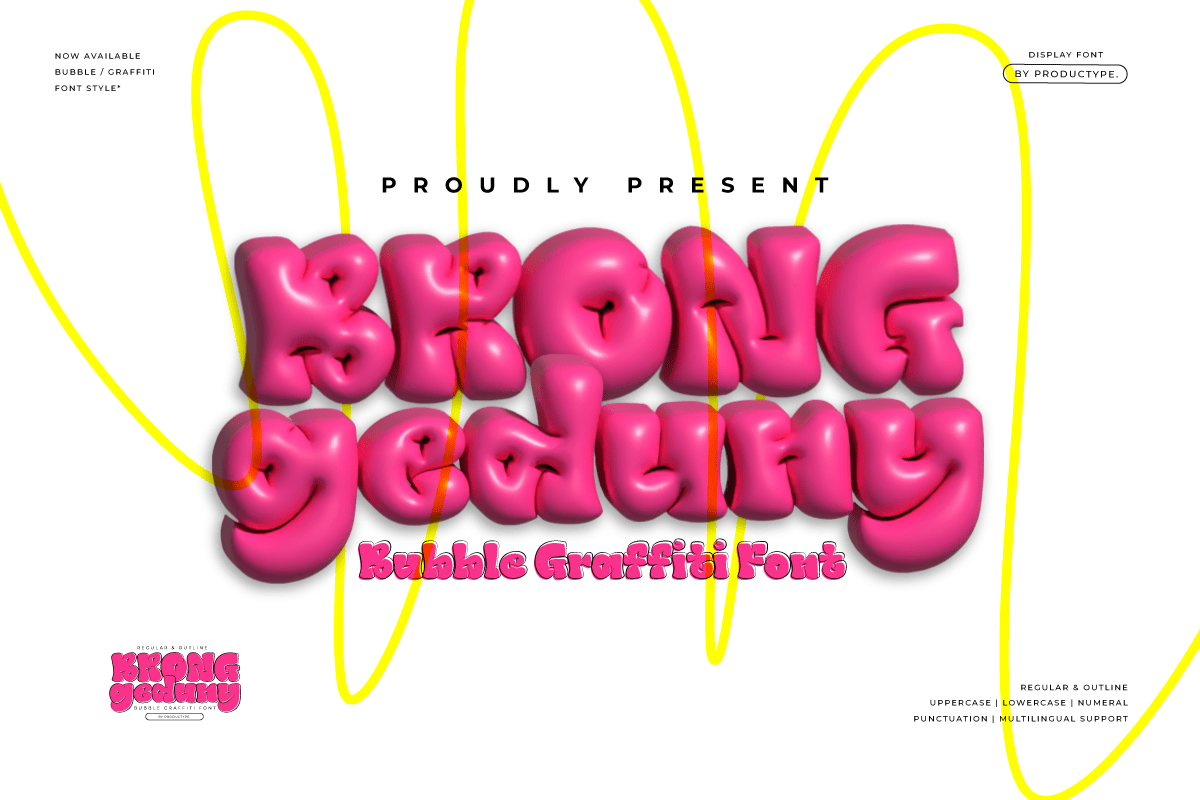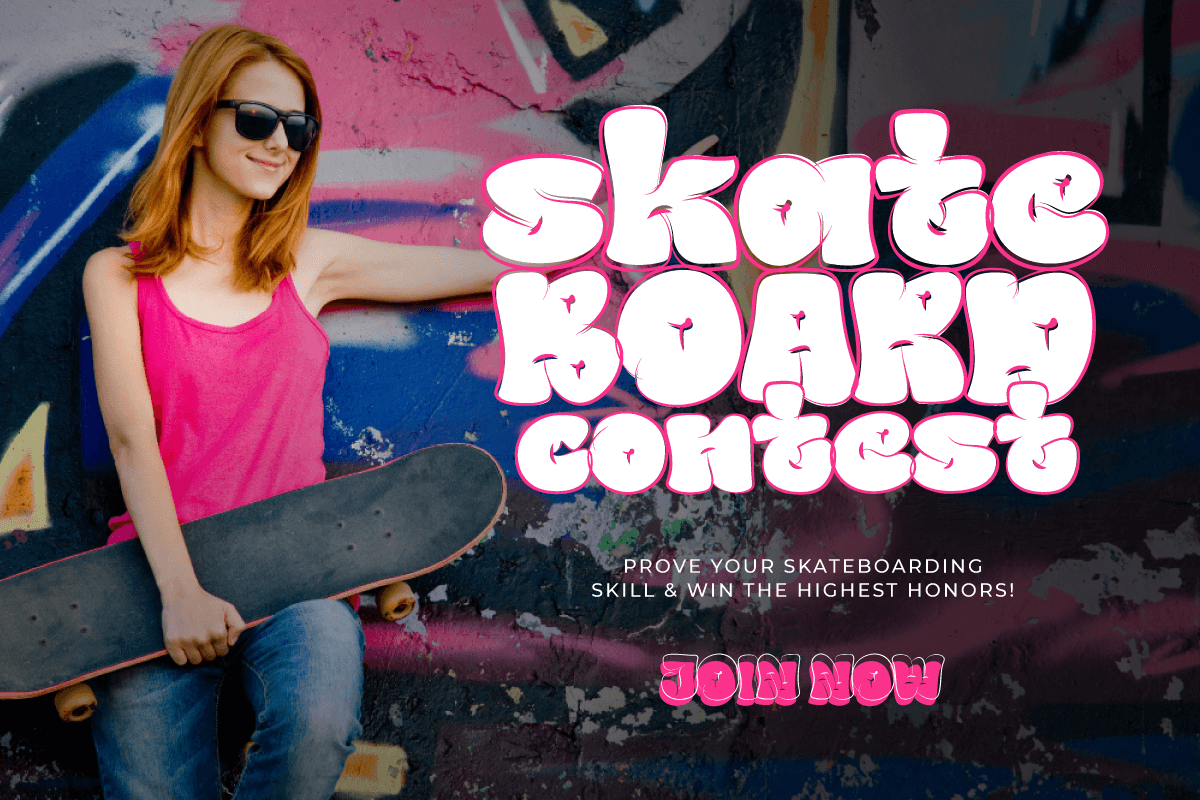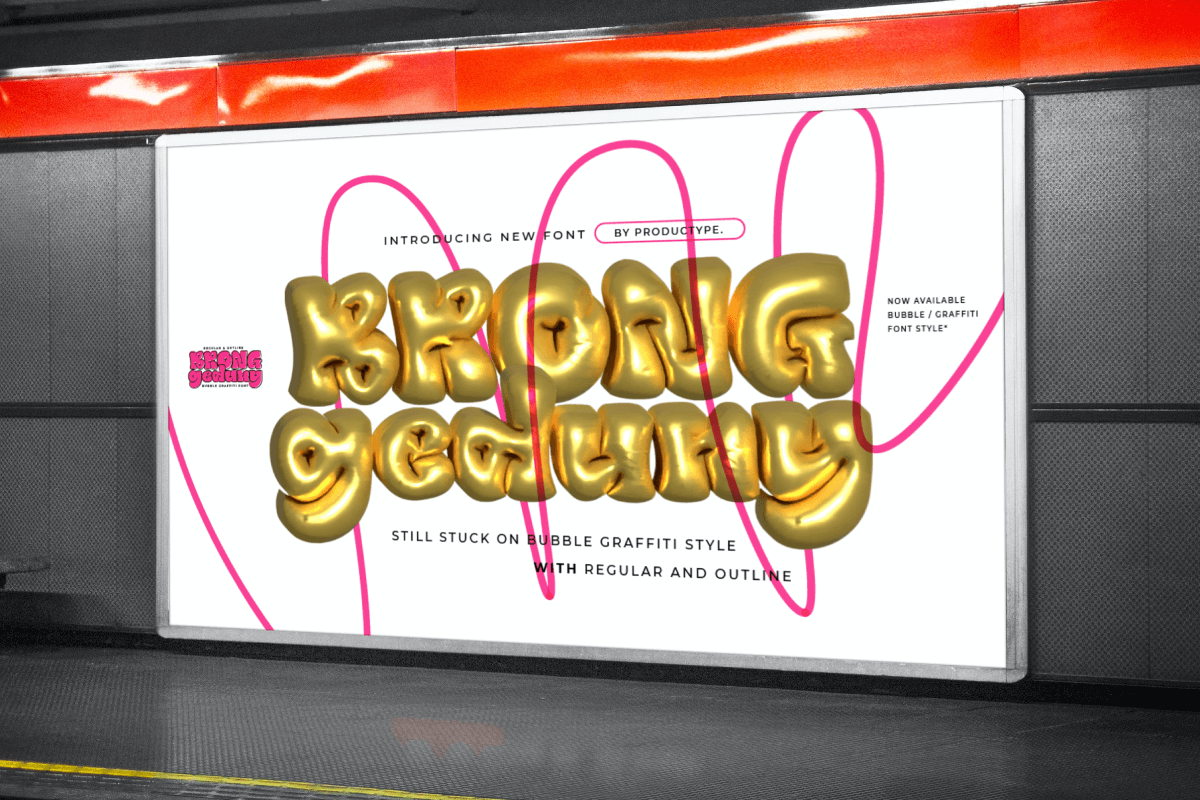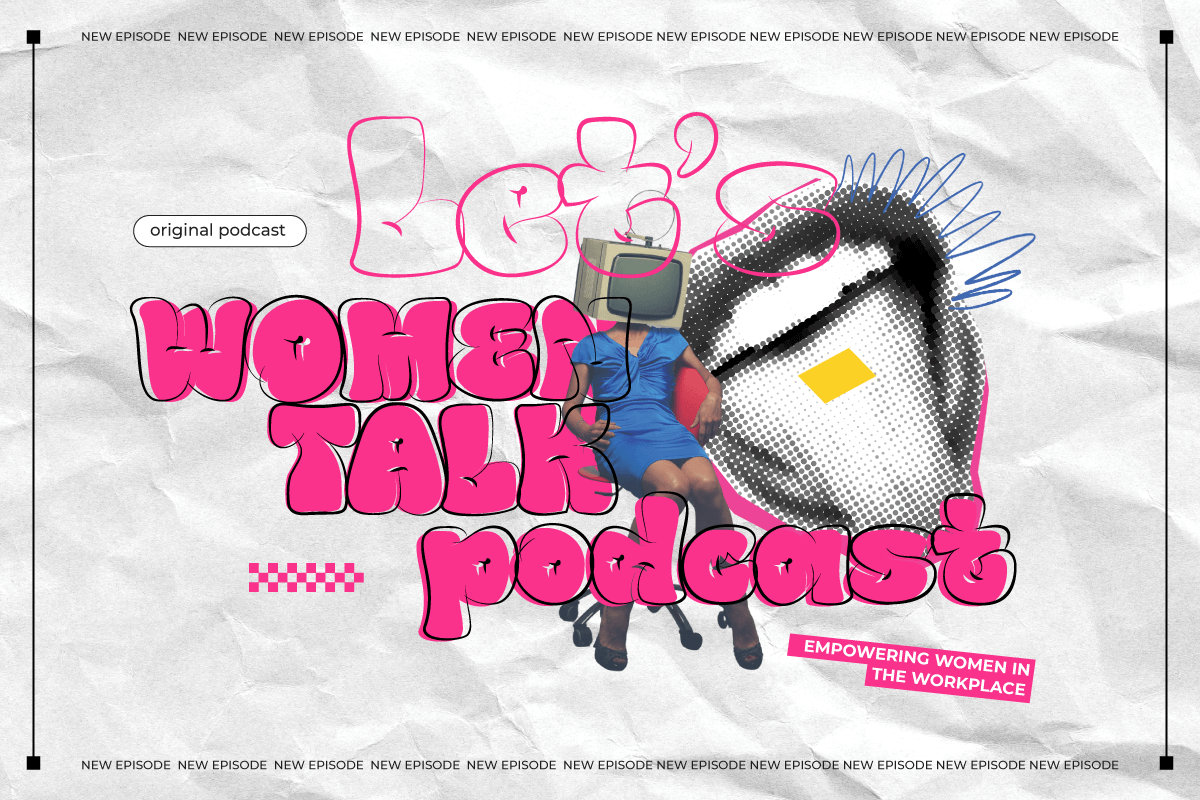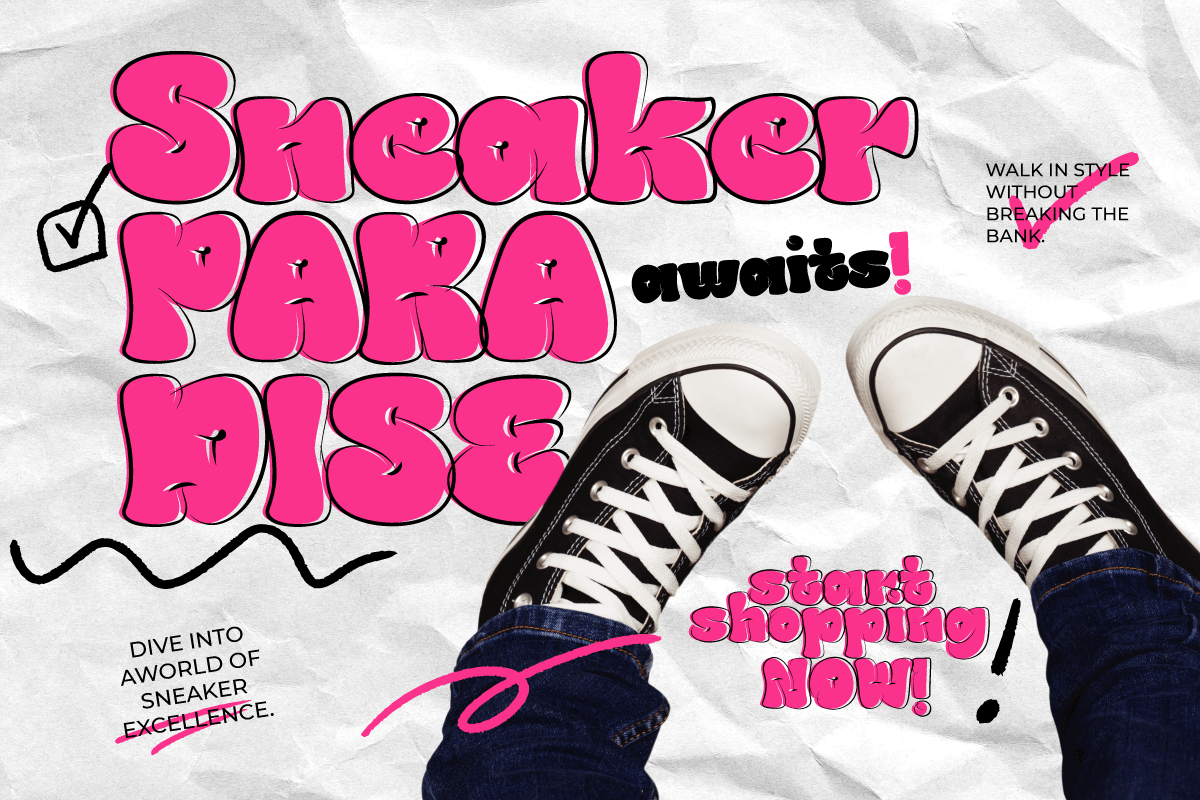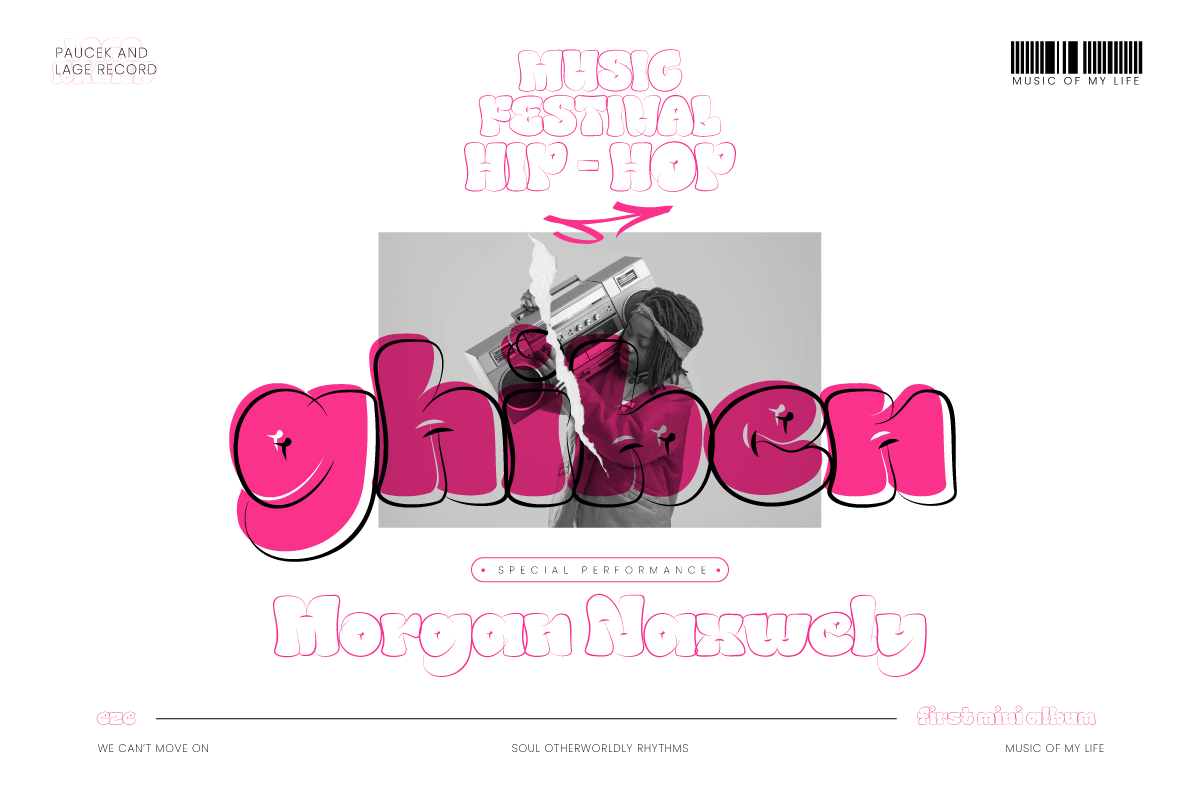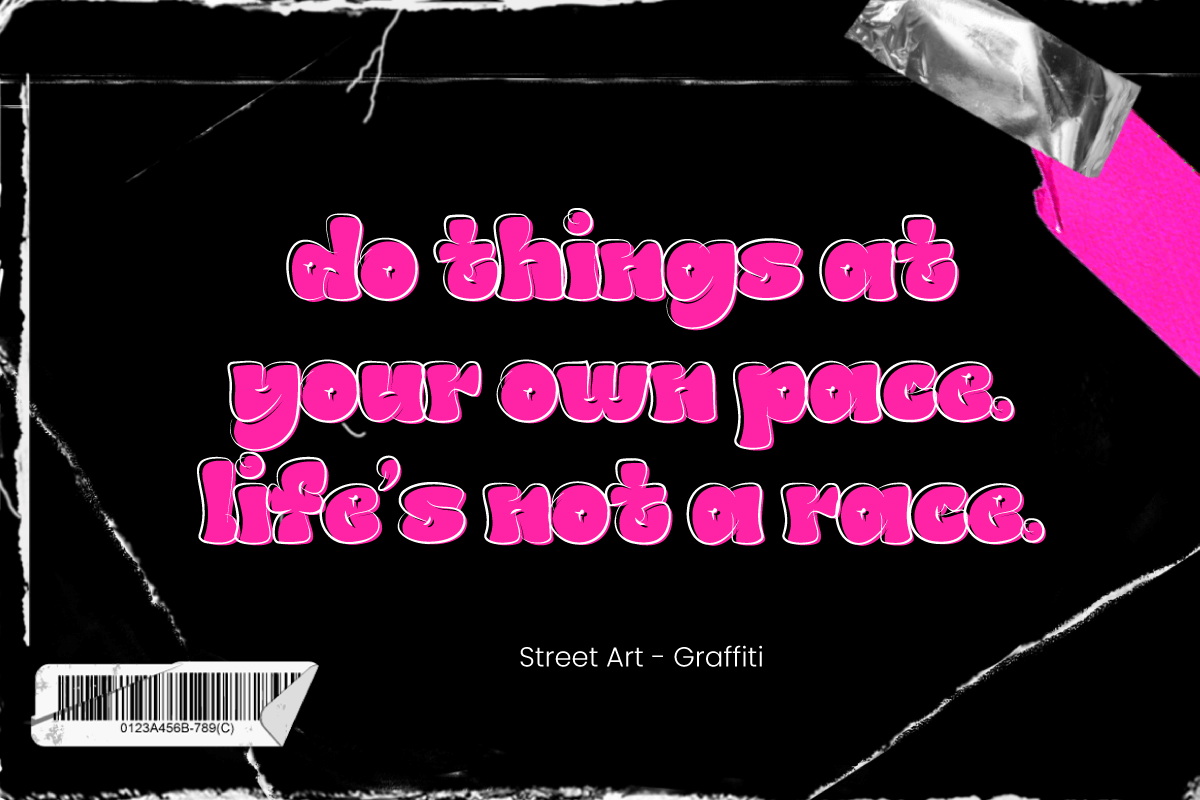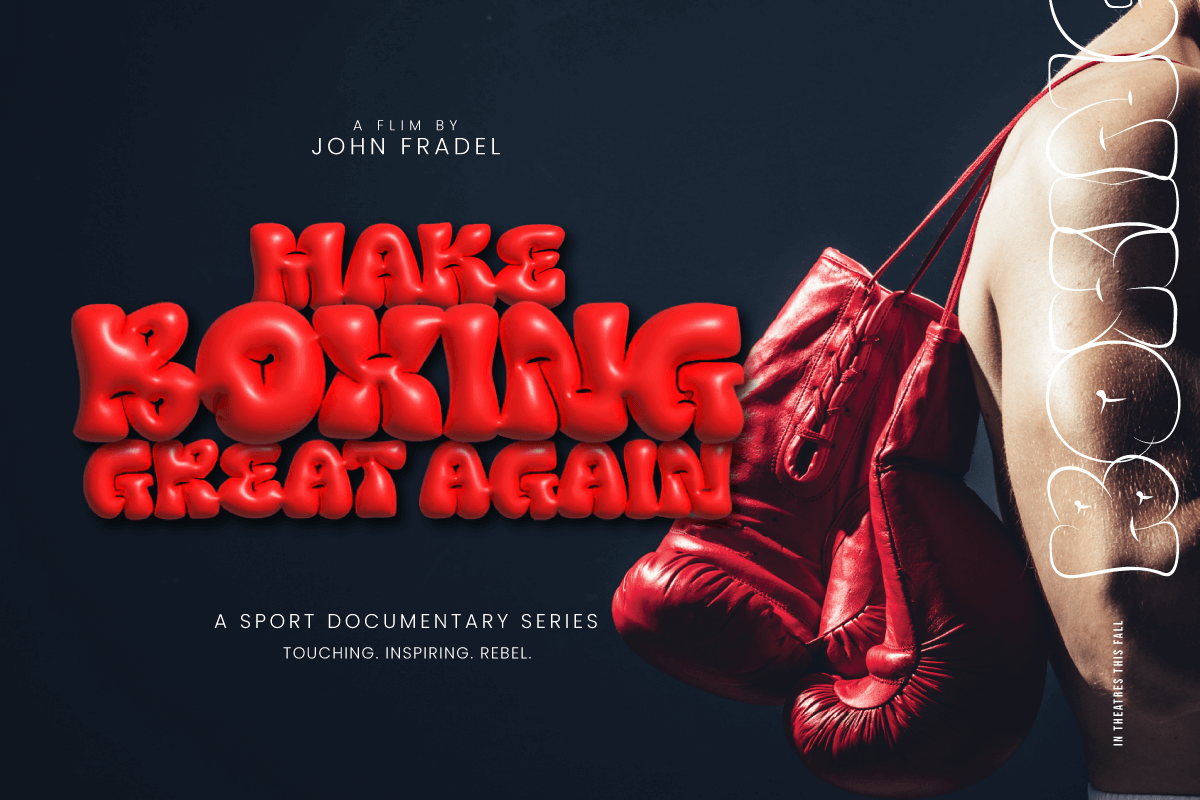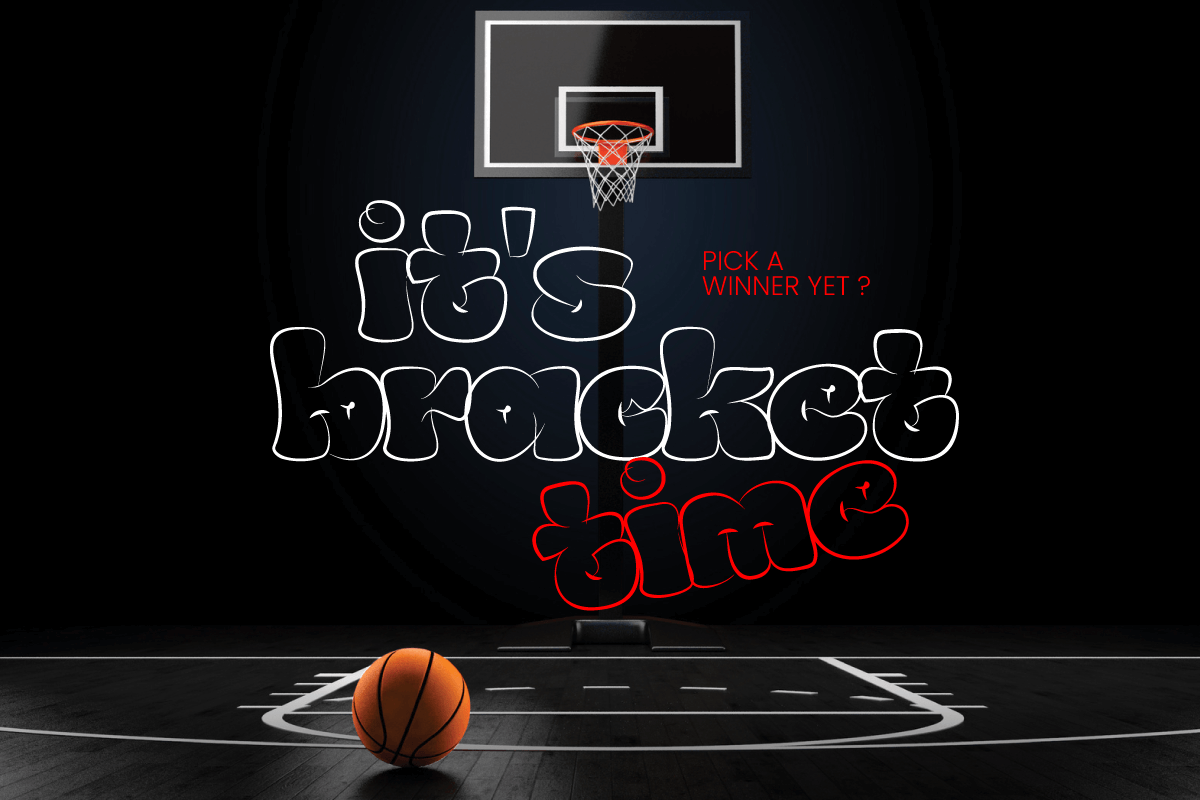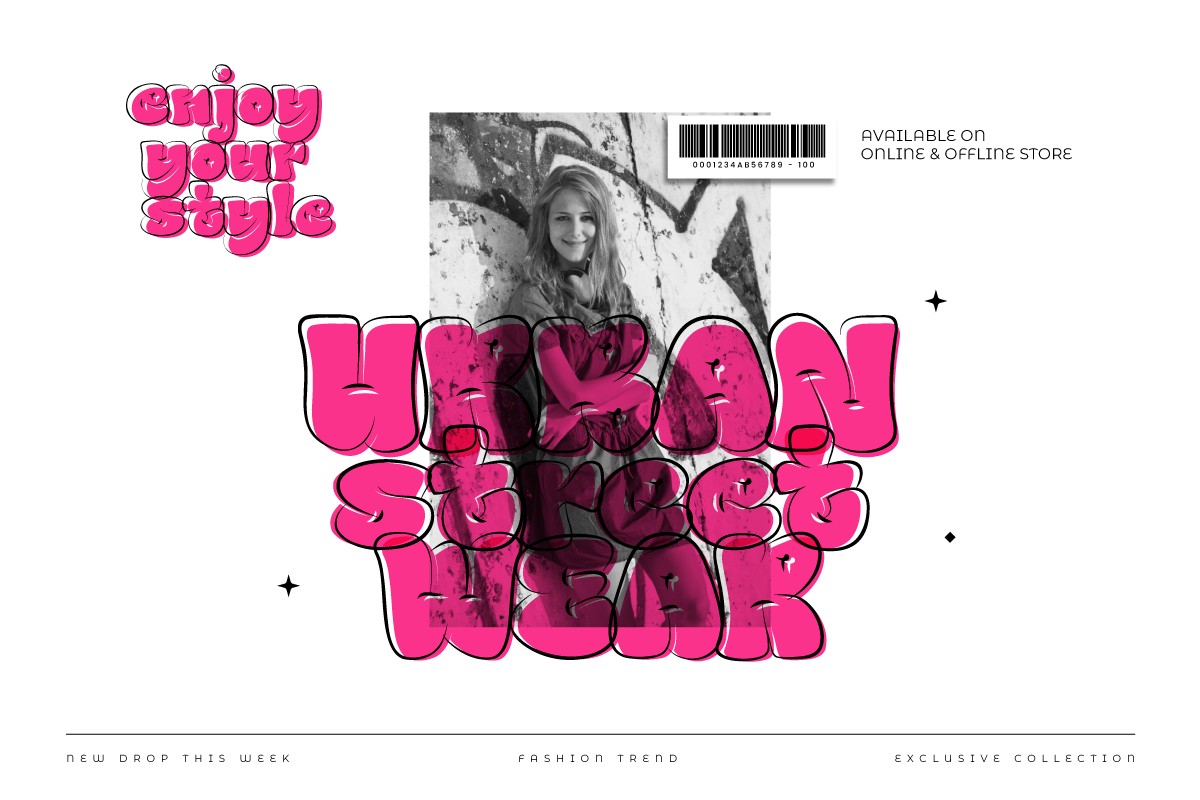
Brong Geduny – Bubble Graffiti Font
Show creativity and urban spirit with the Brong Geduny font, a display-themed masterpiece that presents a bubble graffiti style that is strong, bold, and fun. With uniqueness in every line, this font creates an unforgettable look for your design projects.
Brong Geduny offers two complementary styles: regular for a bold look and outline for a lighter but still expressive touch. Its bubble graffiti style provides a touch that is so bold and vibrant, giving unmatched character to every word you write.
This font not only provides a unique look but is also very functional. With multilingual support, Brong Geduny allows you to easily express your ideas and messages in multiple languages.
Conquer your creativity with Brong Geduny, a font that will not only be the right choice for your design projects but will also be the talk of the online world. Immediately choose the appropriate style and create an extraordinary design with a truly urban touch!